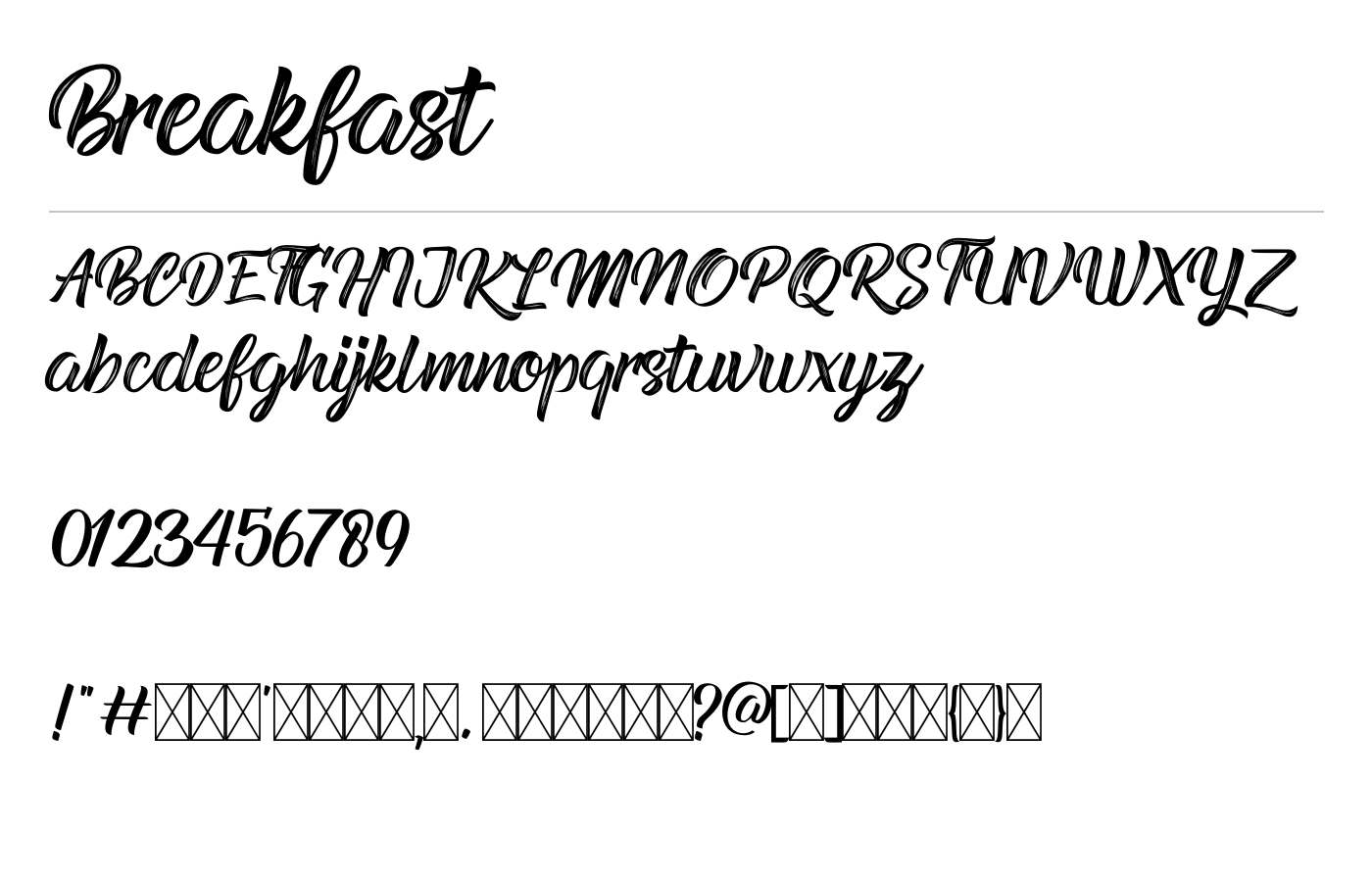
Breakfast Font is a lively and elegant script typeface with smooth, flowing strokes and a medium weight that gives it a warm, inviting feel. Its casual yet refined style is perfect for branding, packaging, and headlines where a personal, friendly touch is desired, making it suitable for lifestyle, food, and creative projects. This font combines readability with a stylish flair, capturing attention while maintaining a natural handwritten charm.
Breakfast Font
About Breakfast Font